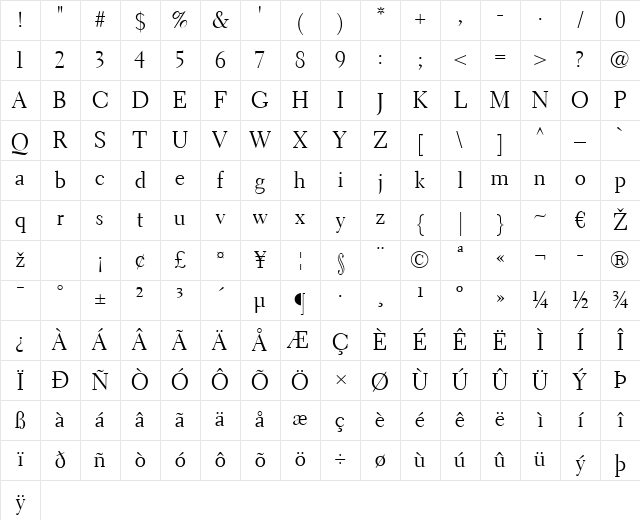
Electra LT Display Regular
Electra LT Display Family
Design Context for Electra LT Display
Electra LT Display is built around its visual character rather than neutral utility - its distinctive forms are designed to make an impression at display sizes. Its slender proportions lend an understated elegance to any composition.
Font Pairing: Pair with a clean neutral sans-serif for body copy to let Electra LT Display's character lead without overwhelming the composition.
Pro Tip: Use Electra LT Display exclusively at display sizes - it was designed to be seen, not read at length. Let a neutral companion handle body copy.